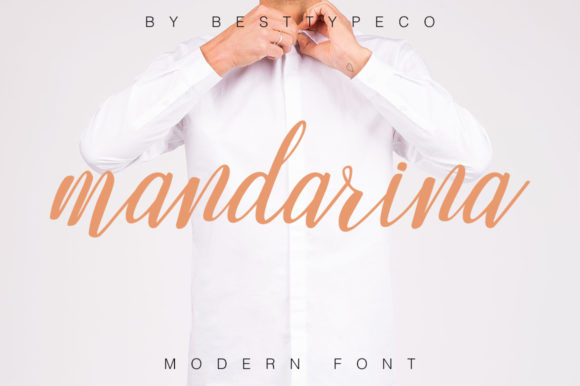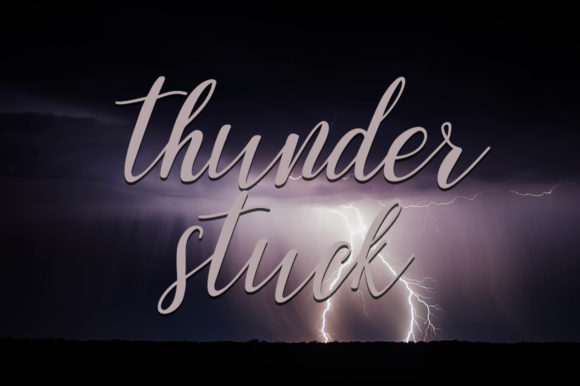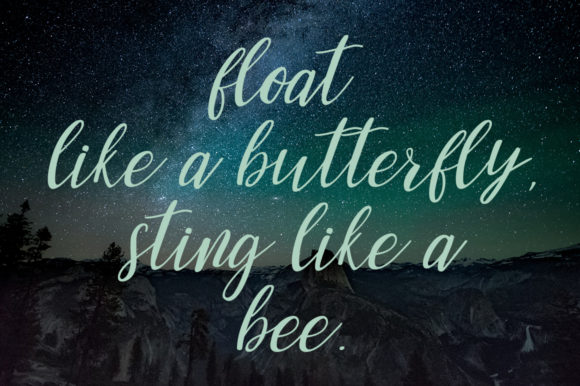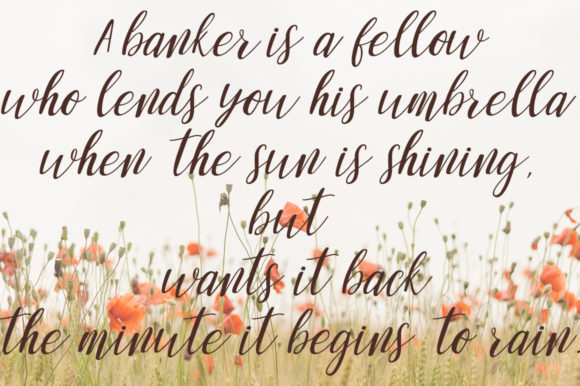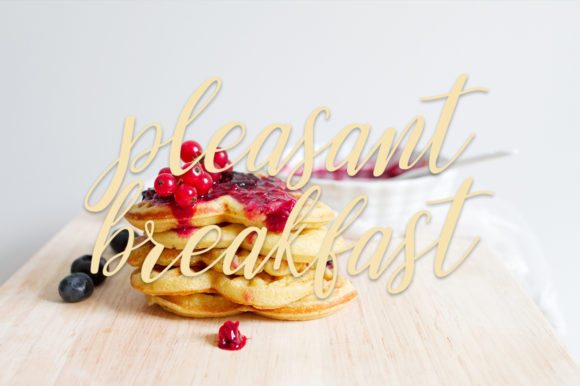
Mandarina Font
About Mandarina Font
Mandarina is a bouncy script font. It features amazing ligatures that make this script incredibly versatile. Whether you’re looking for fonts for Instagram or calligraphy scripts for DIY projects, Mandarina will turn any creative idea into a true piece of art!